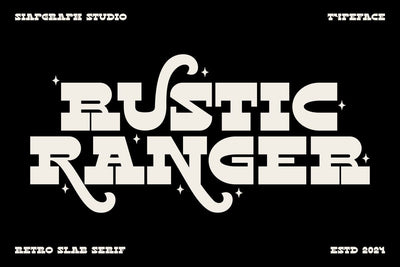
Rustic Ranger - Retro Slab Font
Rustic Ranger is a bold, quirky, and retro slab serif font perfect for adding a touch of vintage charm to your designs. Its unique style makes it ideal for creating eye-catching quotes, as well as for apparel mockups such as t-shirts, mugs, and tumblers.